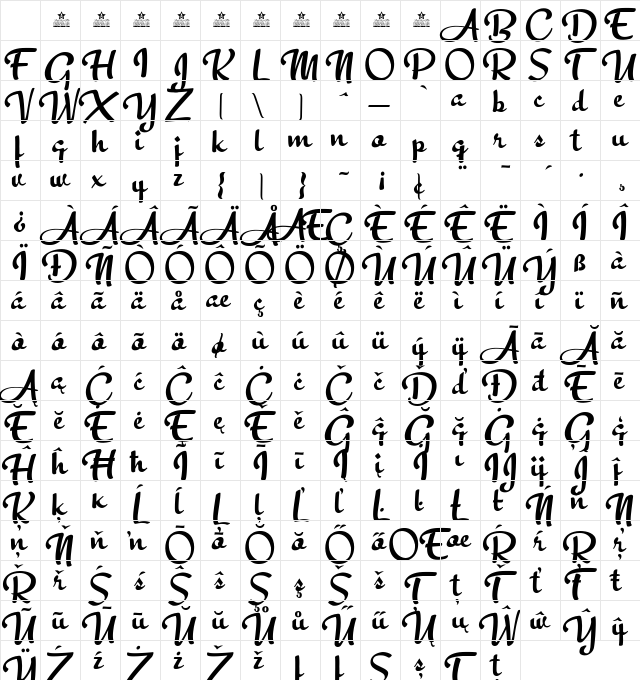
Complete Peacemaker Regular glyph index. Displaying only characters natively supported by Peacemaker Regular font.
Peacemaker is a composed and adaptable typeface that performs quietly and consistently across a wide range of design contexts.